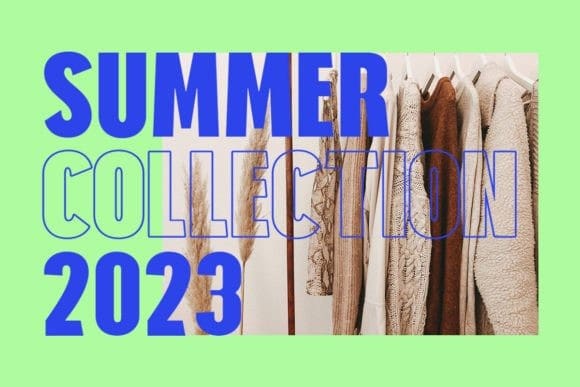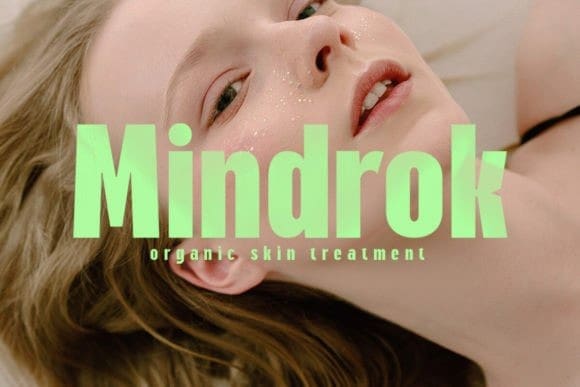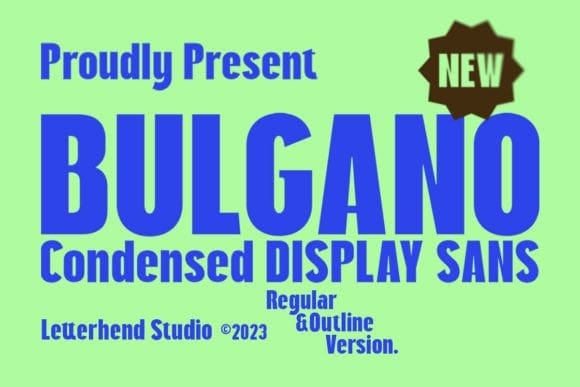
Bulgano Font
Bulgano Font is condensed display font with 2 styles, regular and outline. It’s classic & casual looks, make it perfect for everything from labels, logos, magazines, books, greeting / wedding cards, packaging, fashion, make up, stationery, novels, labels or any type of advertising purpose.